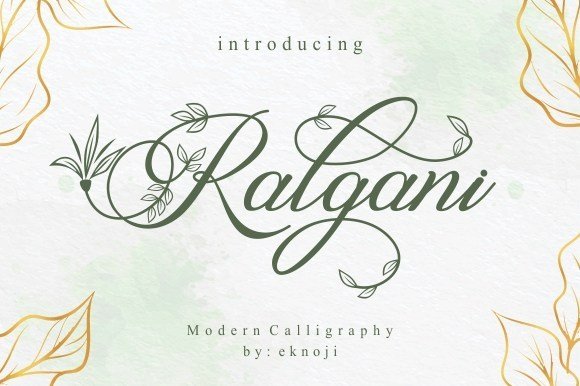
Ralgani Modern Calligraphy Font
Ralgani Font is beautiful modern calligraphy script font make with many swashes in start and ending character. Make a beautiful love swashes. This font includes full set of swash heart lowercase letters, numerals, and punctuation. Also it includes open type Ligatures.